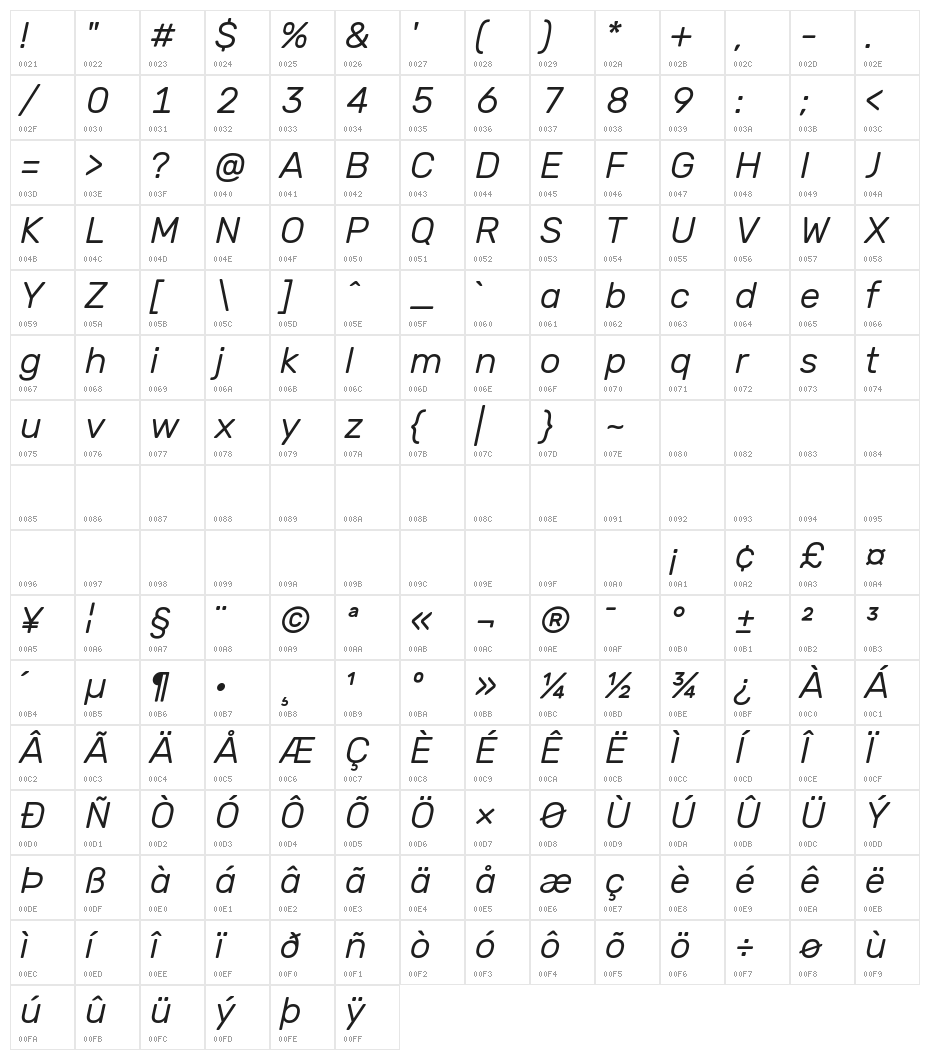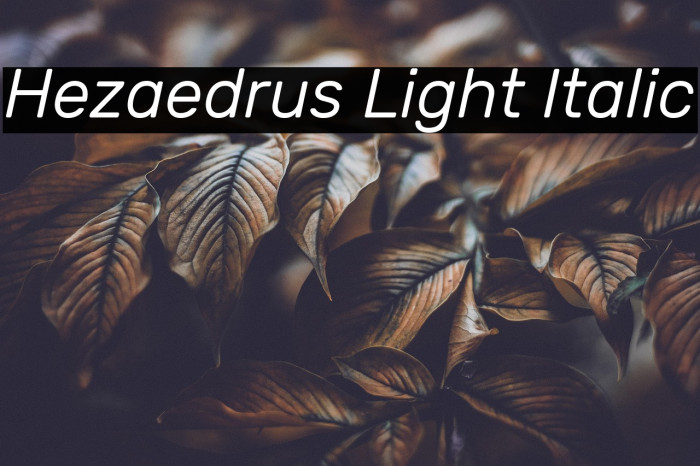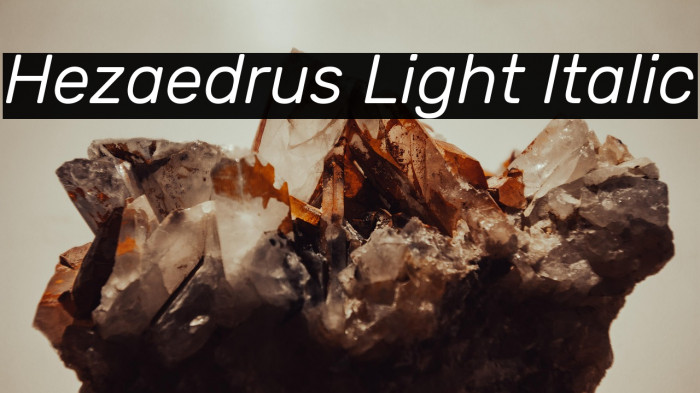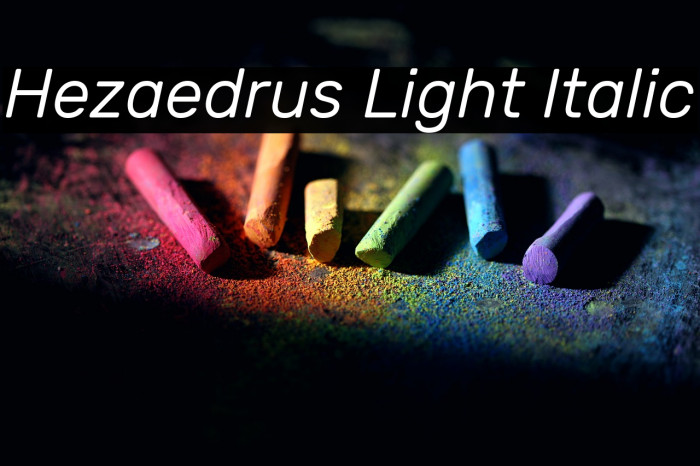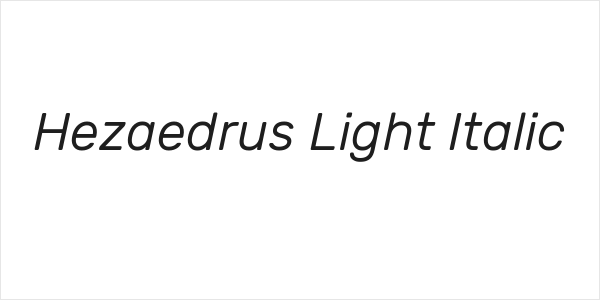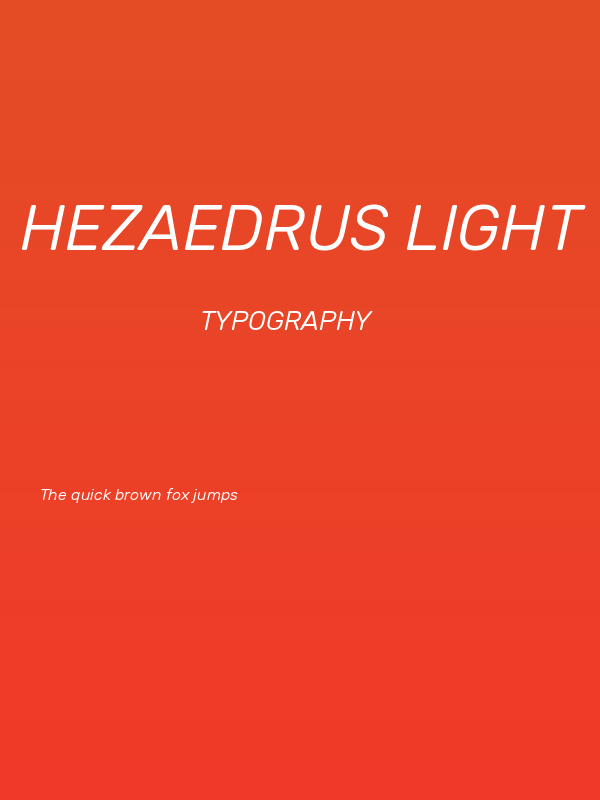
Hezaedrus Light Italic Font
Hezaedrus Light Italic Description
This font features a sleek and modern design with a light weight and italic style. The characters are elegantly slanted, providing a sense of motion and fluidity. The sans-serif design ensures a clean and uncluttered appearance, making it highly readable. The spacing between characters is normal, allowing for easy legibility without feeling cramped. The stroke contrast is low, maintaining a consistent thickness throughout each character, which contributes to its modern aesthetic. This font is versatile and can be used in various design projects where a contemporary and stylish look is desired.
| Proposed Projects | Ideal for modern branding, digital content, fashion magazines, and sleek website designs. |